Pixel perfection
Preparing a webfont? Or an icon font that is to be used on the screen? If you can control the pixel size at which it is going to be displayed, this blogpost is for you.
Fonts are made of vectors, but computer screens have pixels. When fonts are displayed on the screen, the vectors are rasterized. This is done by laying out the vectors across the pixel grid. Pixels that fall completely on the inside of the vectors are turned black, pixels on the outside stay white, or whatever your foreground and background colors are. Pixels on the outline get some shade of grey, at least as long as anti-aliasing is applied. Hinting does have some effect, but the basic principle stays the same.
Calculating pixel size
Now, the effective font size on the screen is determined by the PPM (pixels per em) value. This value, surprise, tells you how many pixels are used per em, duh. Glyphs measures all sizes in units. The UPM (units per em) value tells you how many units there are per em, double-duh.
So if we want to know how many units represent one pixel, we need to know the size at which the font is used on screen, i.e. the PPM, and the coordinate resolution of the font file, i.e. the UPM. Then we divide the UPM by the PPM, and we know the unit size of a pixel. It’s that easy. If the resulting value is not a nice, round number, then you may want to alter your UPM in you Font Info (Cmd-I).
- Example 1
we’re going to use our font at a size of 20 screen pixels, thus the PPM=20. The default UPM value is 1000. Now remember: UPM÷PPM=size of one pixel, so one pixel on the screen corresponds to 1000÷20=50 units in the glyph. - Example 2
we’re going to use our font at a size of 16 screen pixels, thus the PPM = 16. The default UPM value still is 1000, so we calculate: 1000÷16=62.5, duh. Not a good number. What are we going to do now? Fear not, let’s first see what would be a better number. I suggest 60 instead of 62.5, because it’s close enough and it is a nice round number. Now, open your Font Info (Cmd-I) and change the UPM value to (Size×PPM=) 60×16=960.
Make sure you don’t get too far off the original 1000 value. Different applications seem to tolerate different UPMs. Experience shows it starts to get hairy at 3000 UPM.
While we’re in the Font Info, you may want to go into Other Settings and set both the Grid Step and the Subdivision to your pixelsize.
Drawing with pixel precision
Now, when you draw your shapes in Glyphs, you’ll see a grid in the background indicating the actual screen pixels for the given PPM. If you stick to that grid, the output will be pixel-perfect for the PPM you chose plus all multiples thereof, e.g. if you draw for PPM=16, then it will also look good at sizes of 32, 48, 64 and 80 PPM.
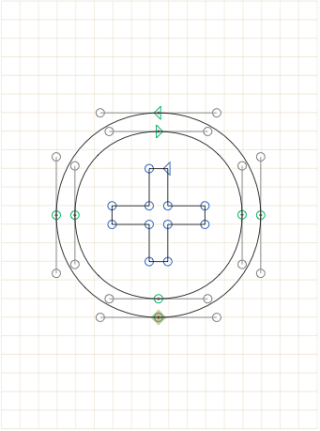
This is the symbol from above at 16 PPM:
Of course, it’s not going to be pixel-perfect at most other sizes. Any user who chooses to have a non-native screen resolution, and any user who uses zooming, will not see the pixel perfection we have just spent our blood, sweat and tears on. So, for example this is the same drawing at 21 PPM:
But since we cannot force people to use the settings we’d prefer for our vectors, that’s simply how far pixel perfection goes. Duh.
Retina display, anyone?
With the advent of high-resolution screens like Apple’s Retina displays, the need to optimize for the screen is vanishing. In any event, you do not need any further optimization for HD monitors. And for desktop displays, not only the high pixel resolution counts. Keep in mind that fonts also take advantage of subpixel rendering, which effectively triples your horizontal resolution. Triple-duh!
But what does that mean for us? Ever noticed what pixel-perfect GIFs or PNGs look like on a Retina display? Yeah, they look fuzzy, don’t they. You can replace them with an SVG or a webfont, and save the need for pixelized icons, effectively saving you from making extra versions for Retina and non-Retina displays. Plus, a webfont can save a lot of bandwidth if you use a lot of icons on your website. Double-win, high five!